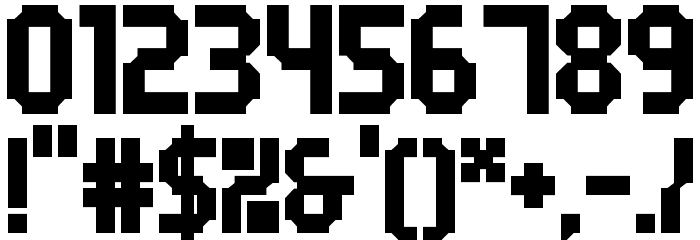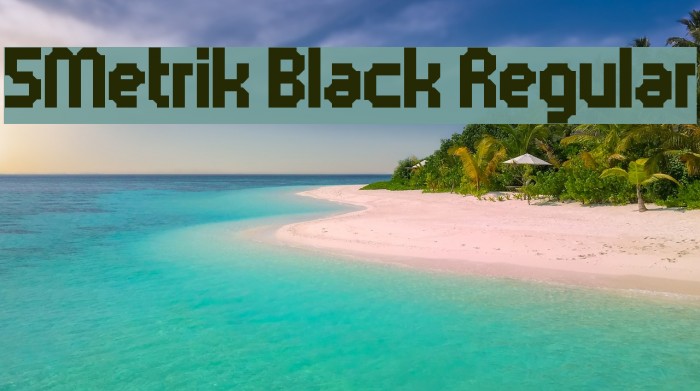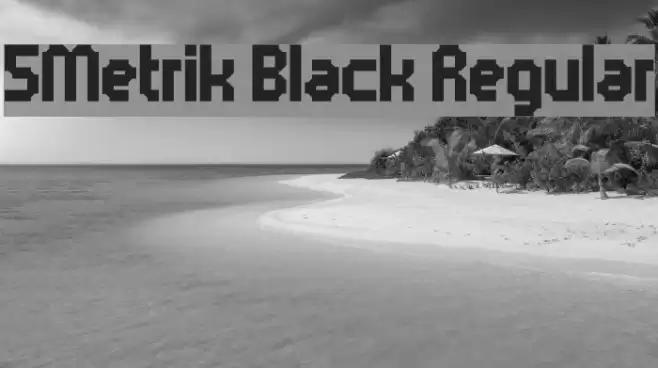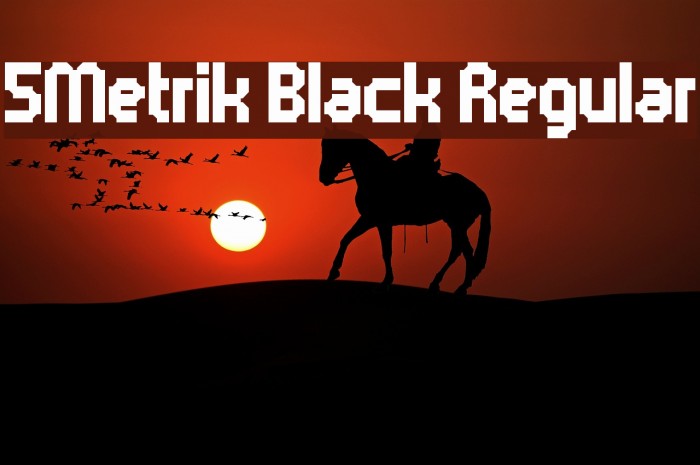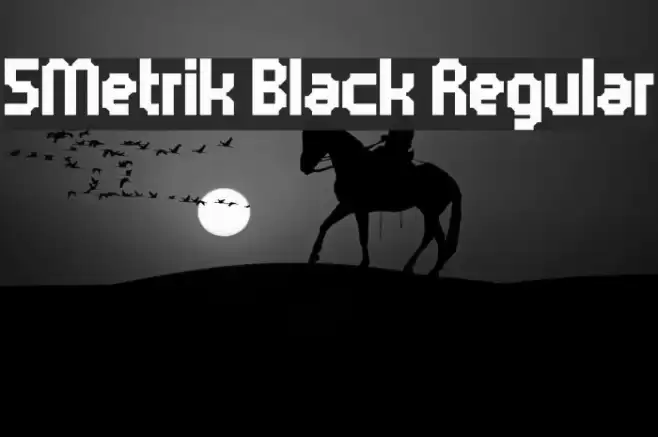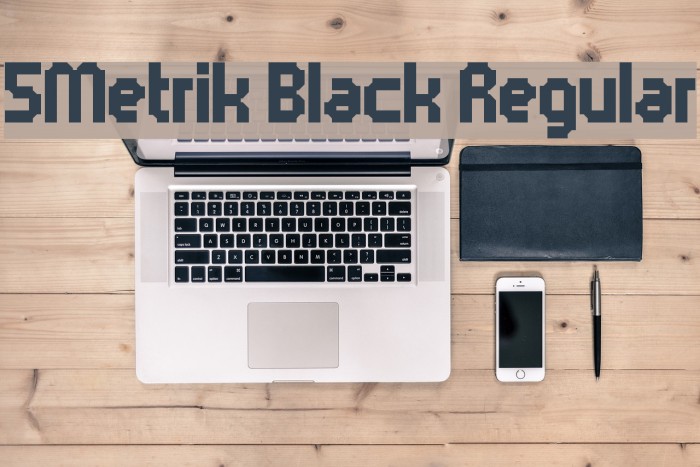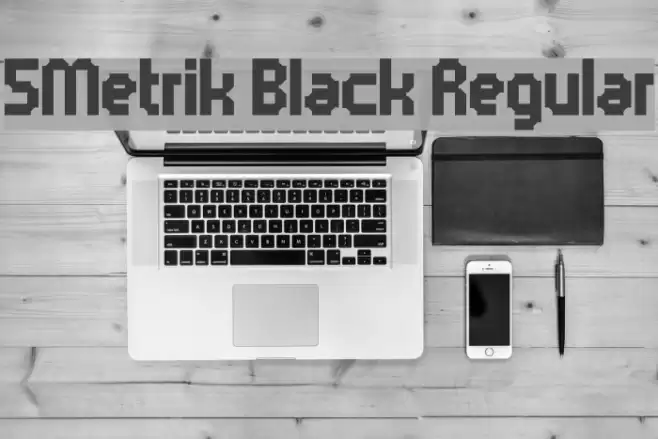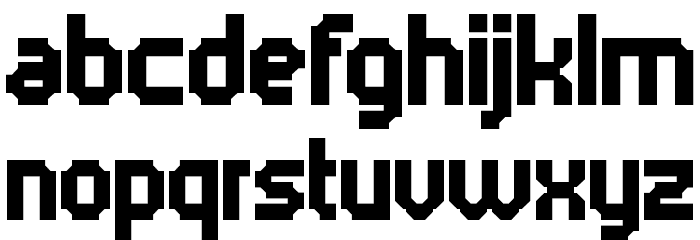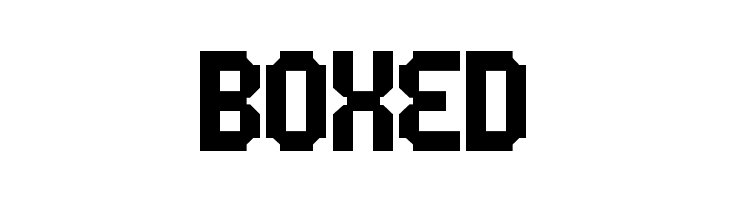
5Metrik Black Regular Font
This font features a bold, geometric design with a distinctly modern and digital aesthetic. The characters are constructed with sharp, angular lines and consistent thickness, creating a uniform and cohesive appearance. The uppercase and lowercase letters maintain a strong presence, with minimal curves and a focus on straight edges. Numbers and special characters follow the same design principles, ensuring a seamless integration across all glyphs. The overall style is reminiscent of digital displays or retro gaming, making it ideal for projects that require a futuristic or tech-inspired look.
A bold, geometric font with a modern, digital aesthetic.
• Proposed Projects: Ideal for tech-related branding, video game titles, digital interfaces, and futuristic posters.
• Category: Decorative/Display
• Bold: Yes
• Italic: No
• Weight: Bold
• Width: Normal
• Character Spacing: Normal
• Contrast: Low
• Overall Style: Modern
• Use Case: Headlines, Logos